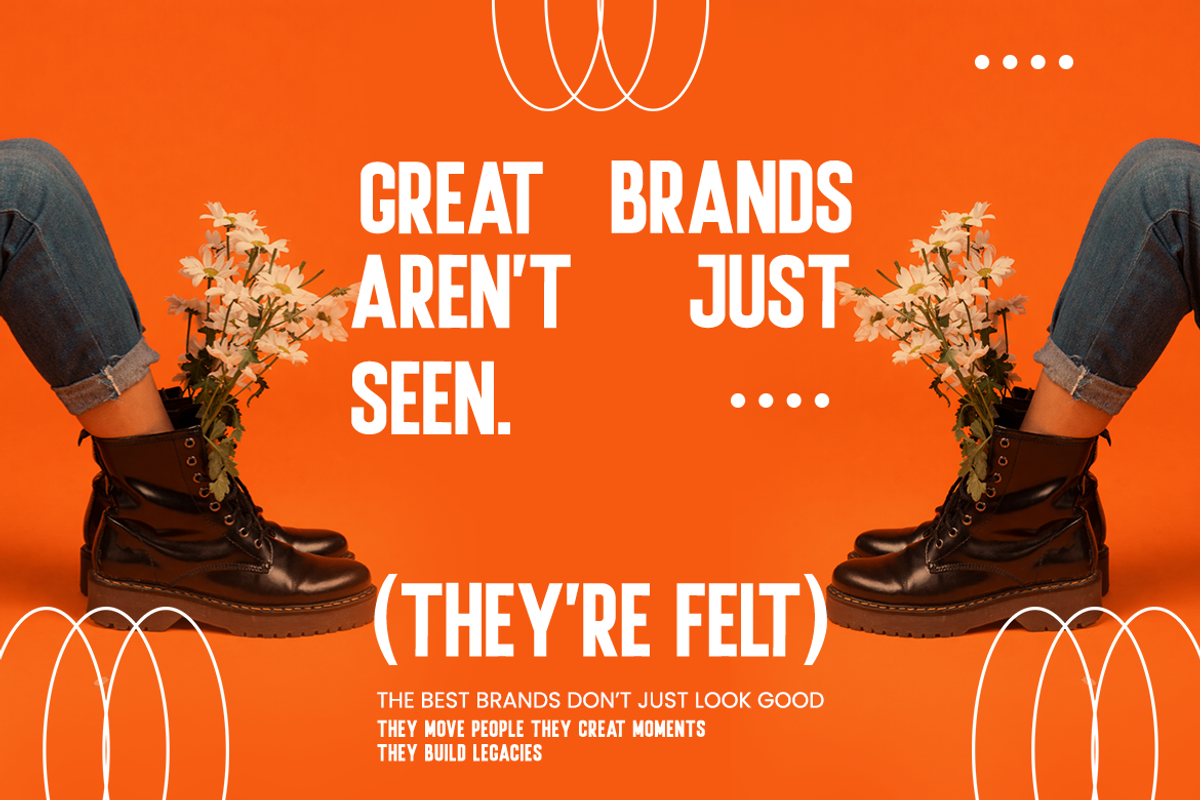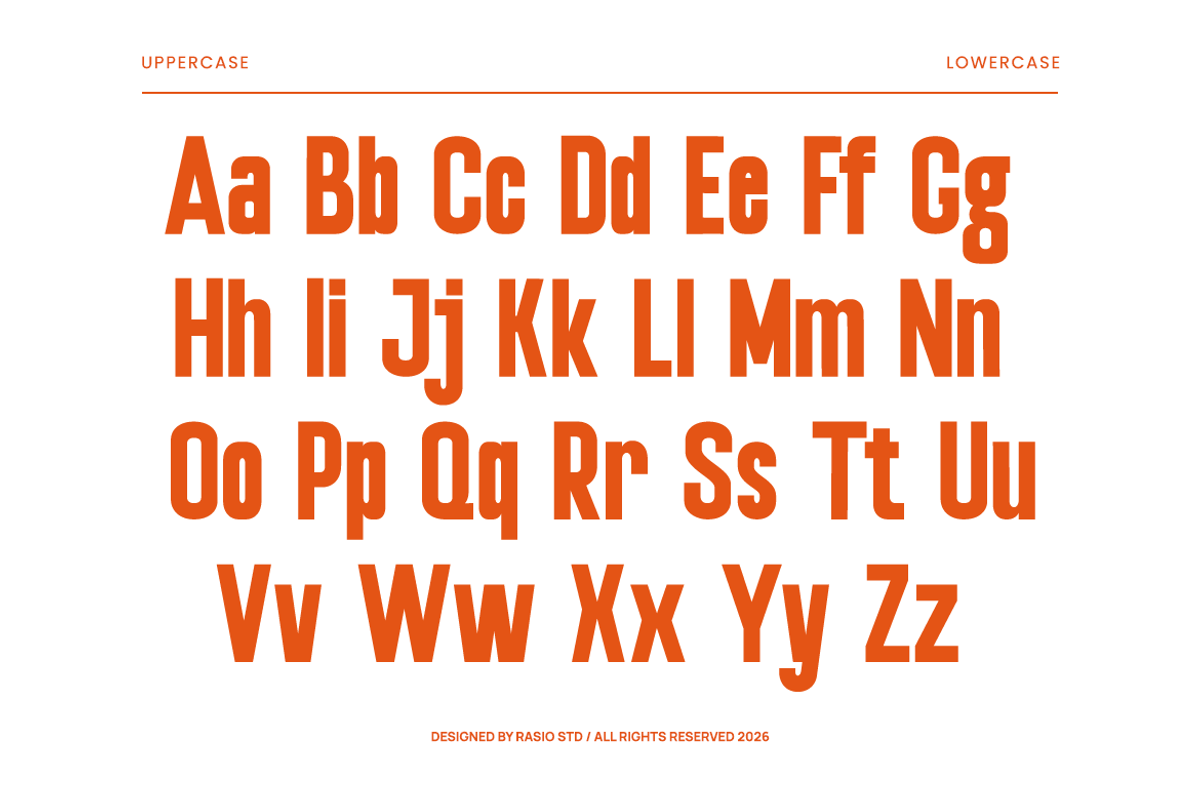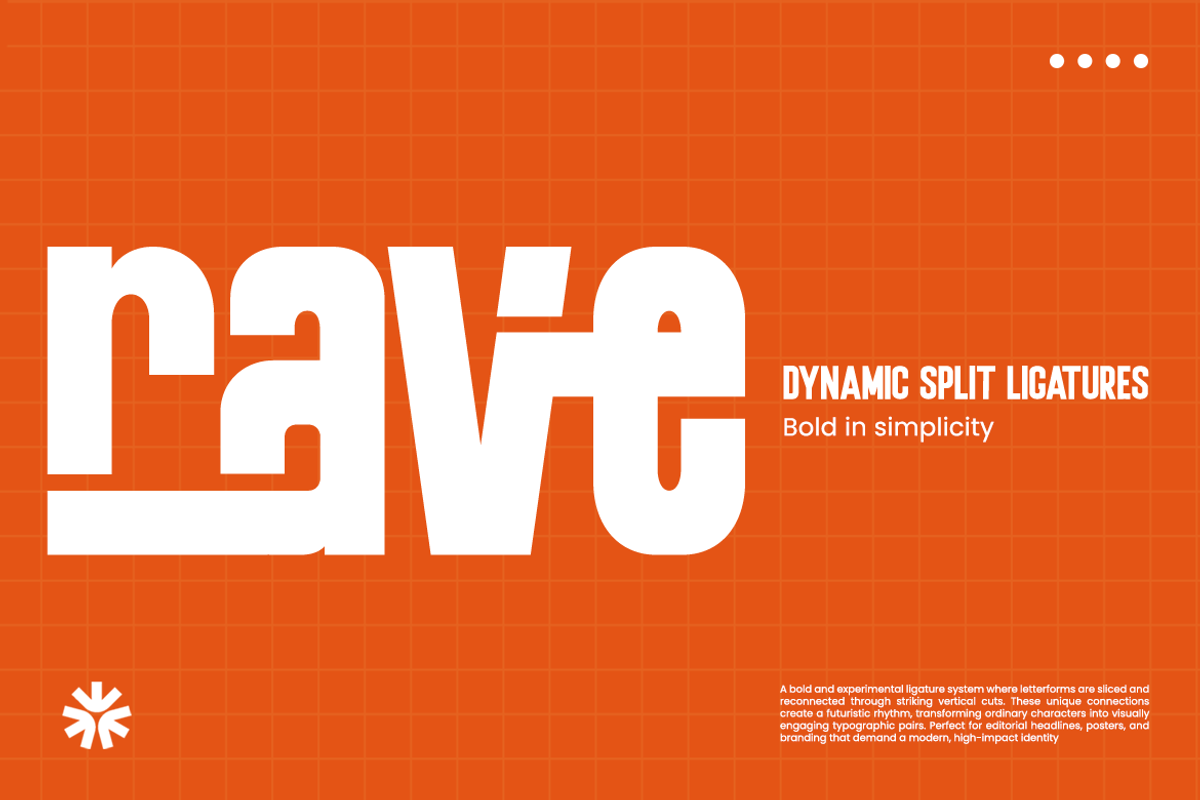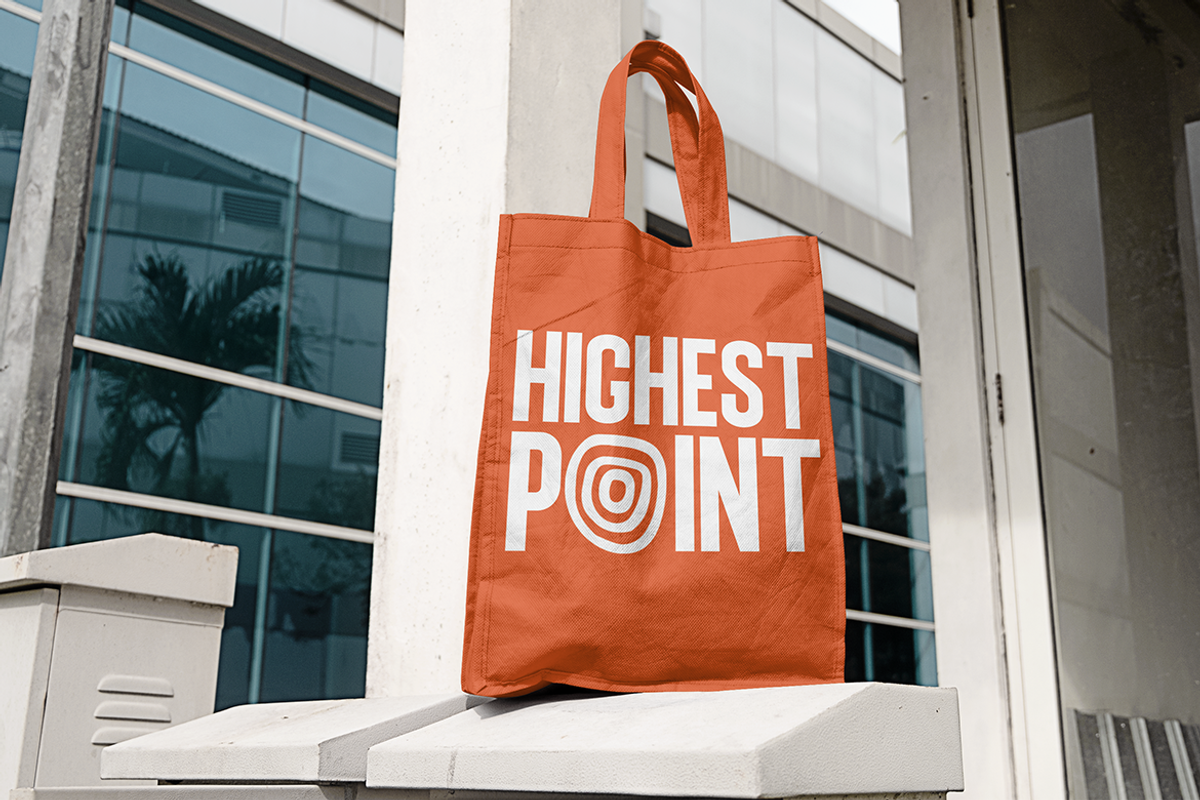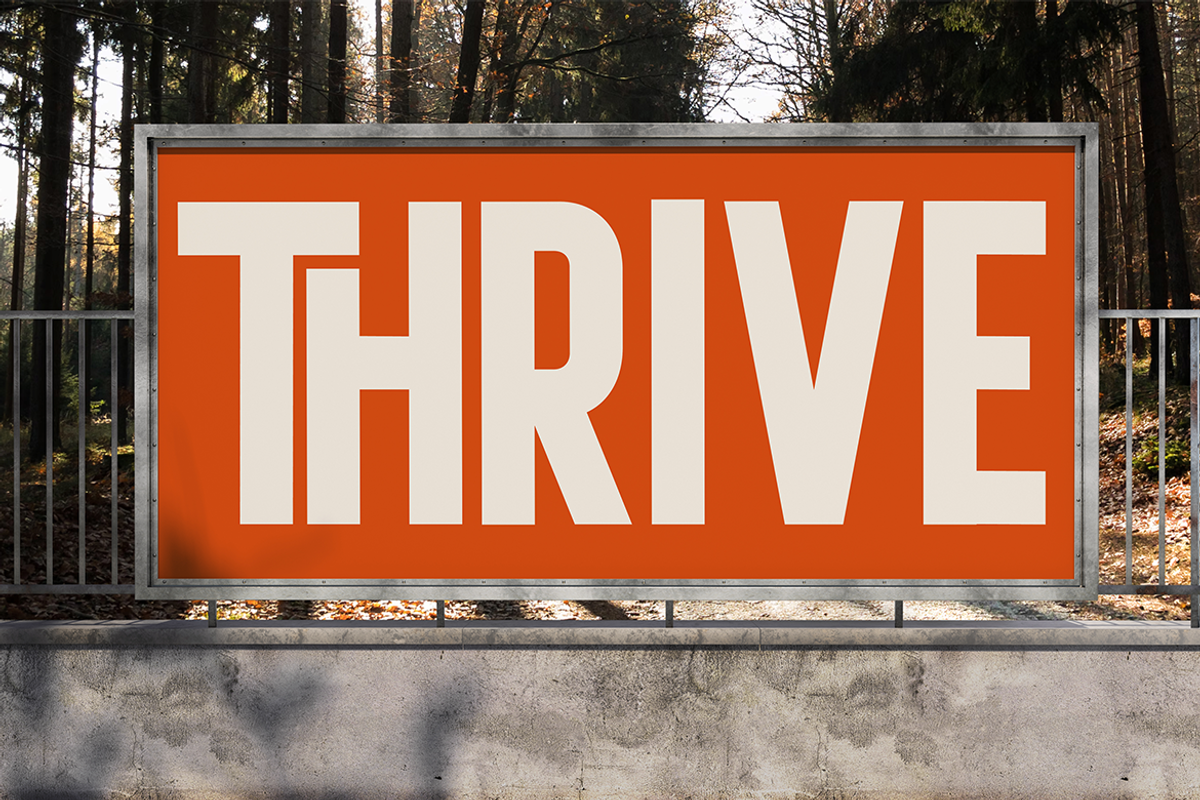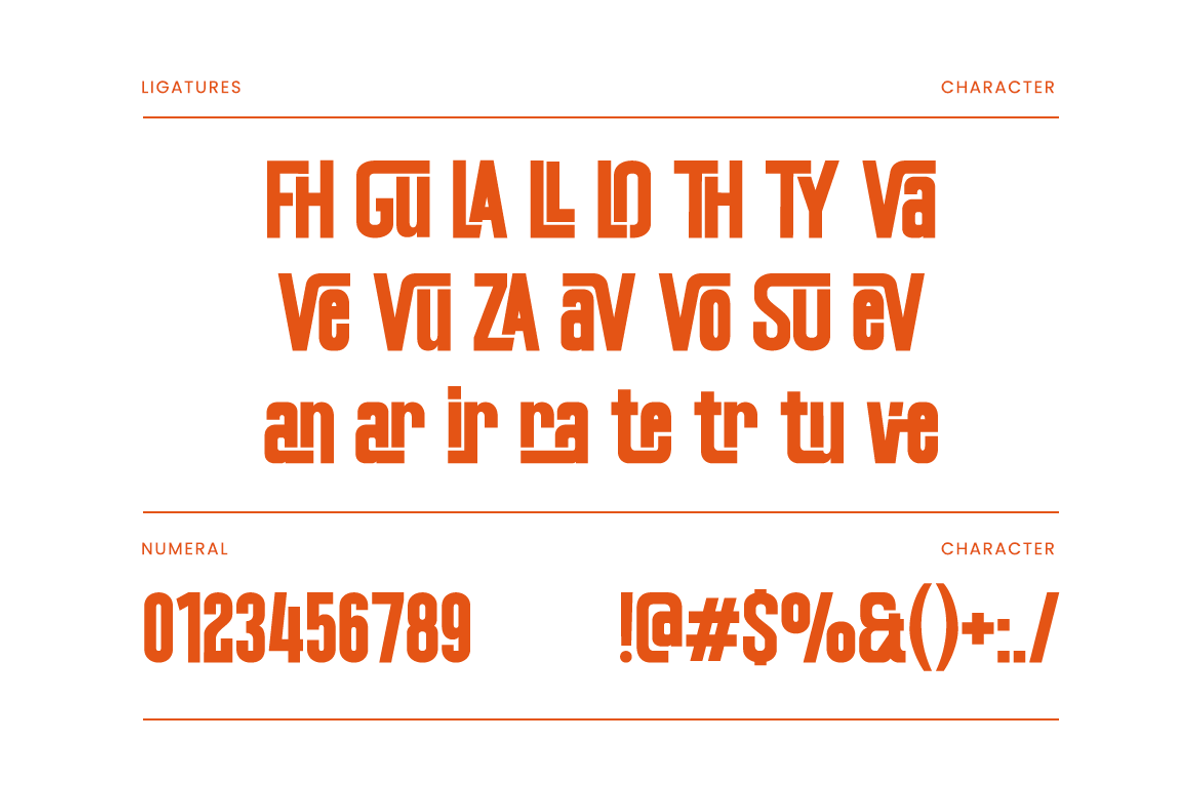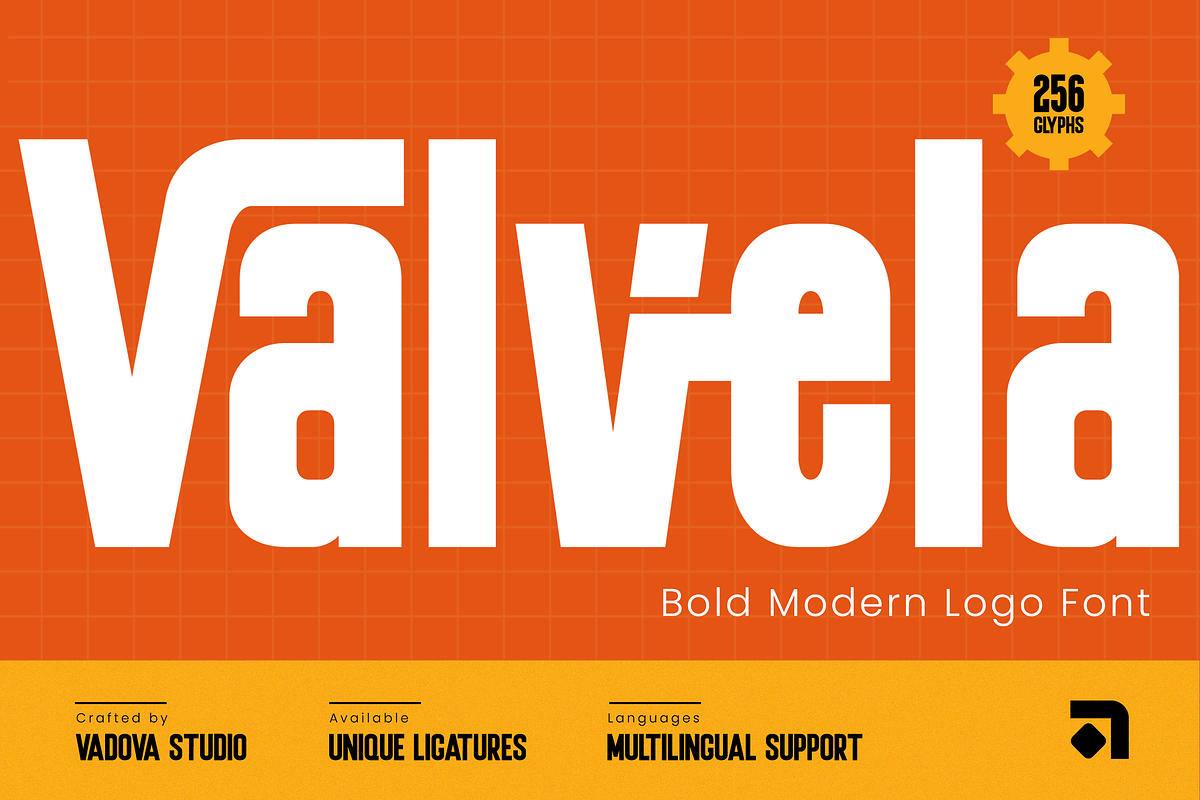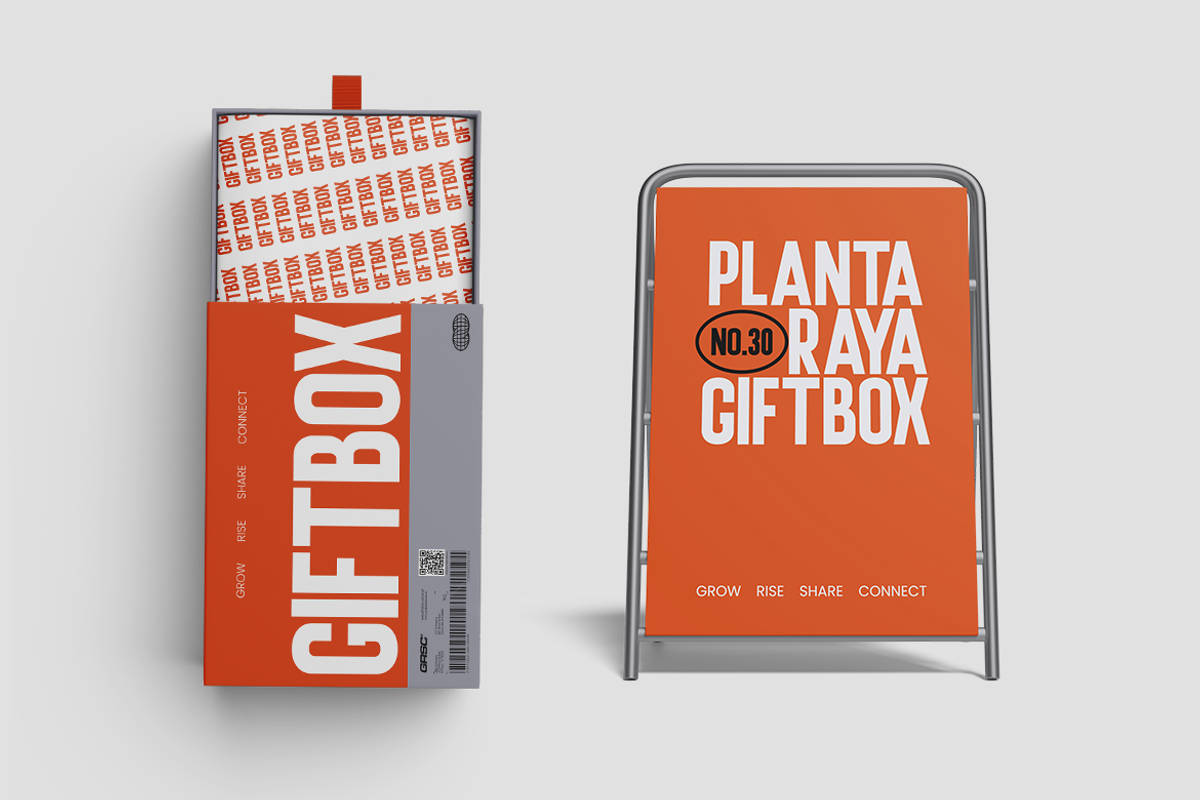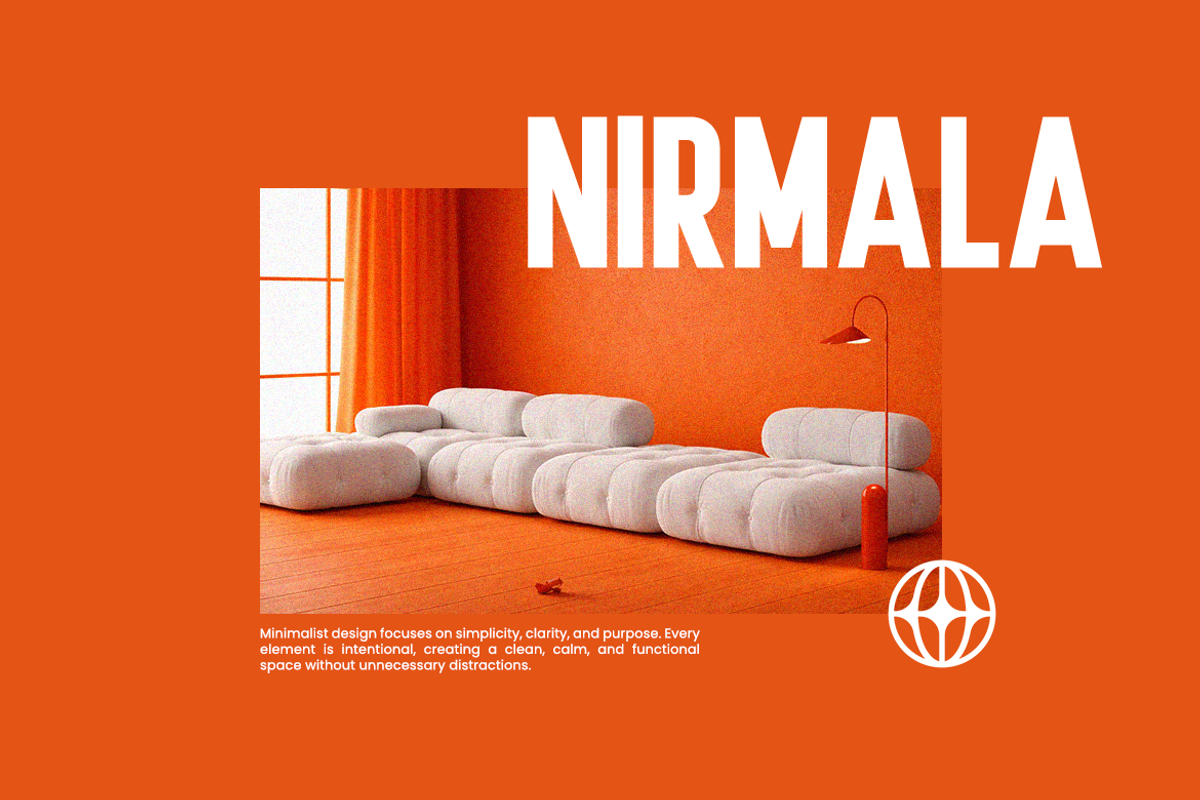
Valvela Bold Modern Logo Font
Valvela is a bold modern logo font featuring strong geometric letterforms with clean edges and high visual impact. The typeface includes uppercase and lowercase characters, numerals, punctuation, and multilingual support, along with unique ligatures for enhanced branding flexibility. Designed with a solid, condensed structure and balanced proportions, it delivers excellent readability for headlines and identity design.
This font is highly relevant for branding projects that require strong visual presence and clarity. It works effectively for logos, business identities, marketing campaigns, posters, and social media graphics where bold headlines are essential. Its structured and modern appearance makes it suitable for corporate visuals, startups, fashion branding, and promotional materials that aim to stand out with a confident and professional tone.
- Bold geometric construction with strong vertical cuts and solid shapes
- Unique split ligature system creating dynamic letter connections
- Condensed proportions for impactful and space-efficient headlines
- Minimal detailing with high contrast edges for a clean modern look
- Consistent stroke weight delivering clarity and visual strength
- Brand identity systems that require strong, bold, and modern visual impact
- Logo design projects with a focus on clean geometry and distinctive ligatures
- Advertising campaigns, posters, and headlines that demand high visibility
- Packaging design for products targeting contemporary and energetic audiences
- Social media graphics and marketing assets with bold, attention-grabbing typography